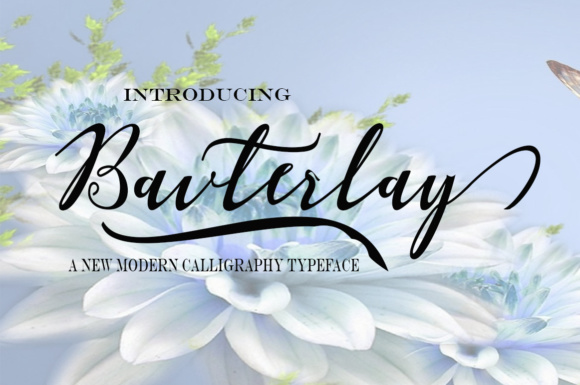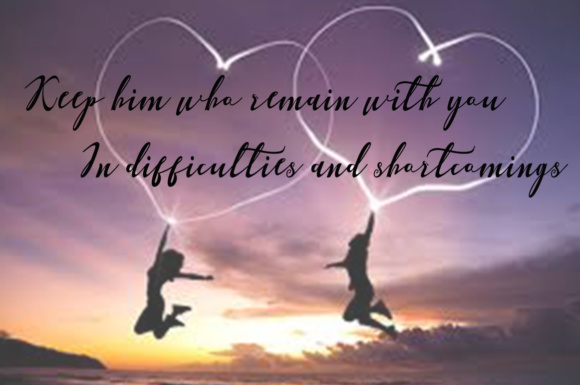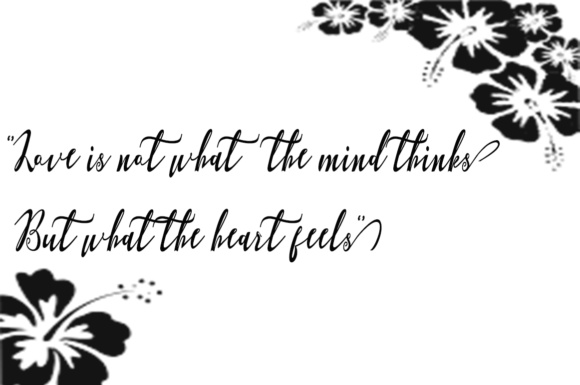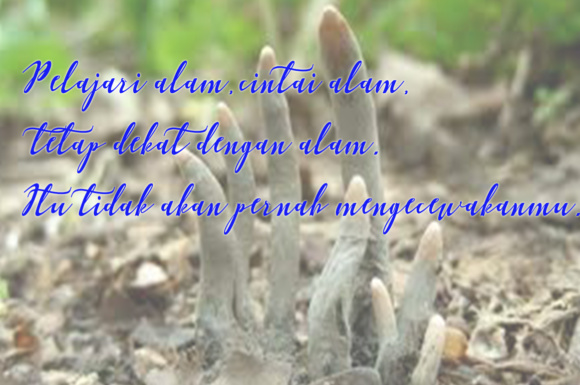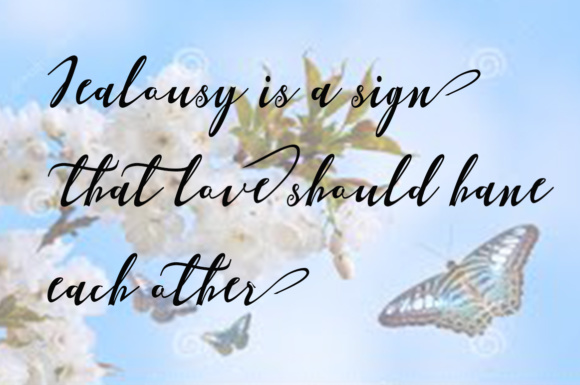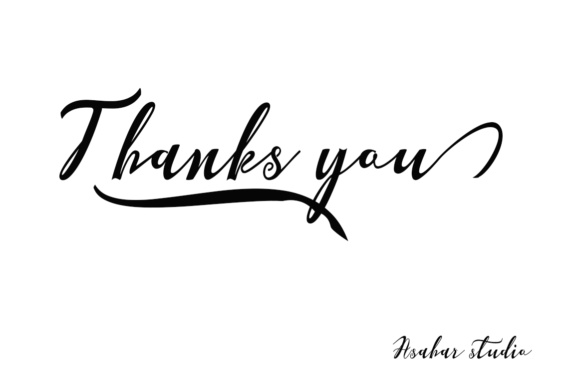
Bavterlay Font
About Bavterlay Font
The Bavterlay is a modern calligraphy font. It has a natural writing style, which is perfect for every design that needs a personal touch.